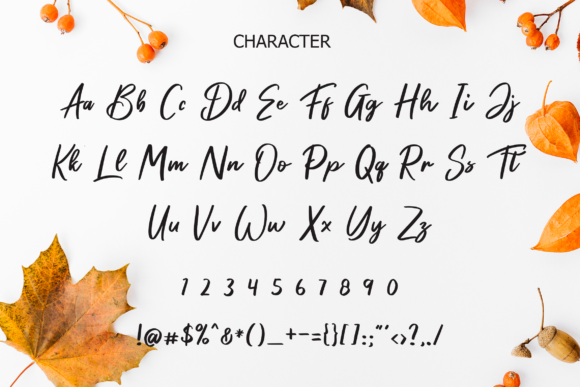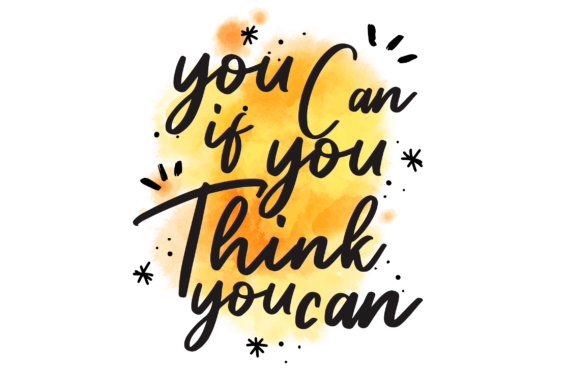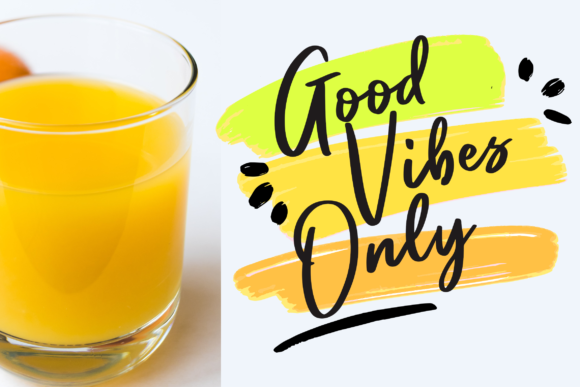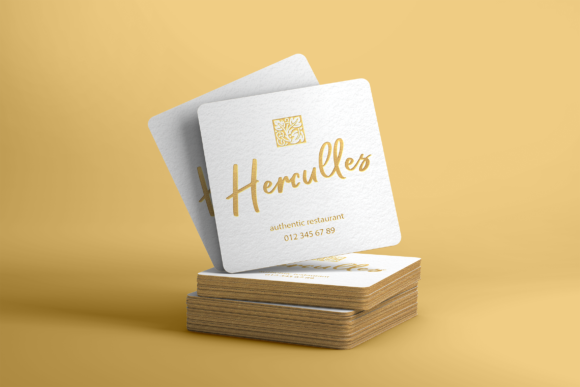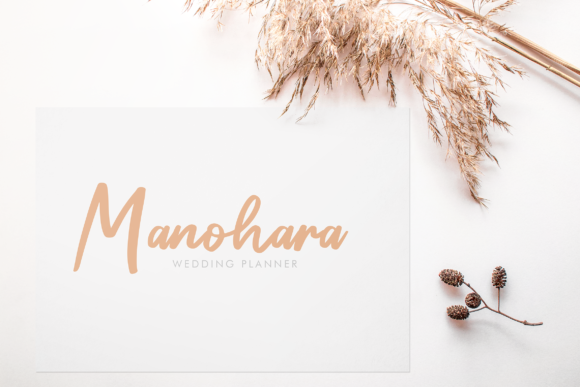
The Ultimate Design Game-Changer: Fallonly Font
Fallonly is a playfully modern script with gorgeous letters that will effortlessly take any design idea to the next level! In this article, I’ll share my honest review of Fallonly Font, a practical guide on how to use it, and some helpful tips and tricks to get the most out of this stunning font.
My Honest Review of Fallonly Font
- 💫 Beautifully crafted letters with a perfect balance of playfulness and sophistication
- ✅ Easy to read and understand, even at smaller font sizes
- 🎉 Extensive OpenType features, including glyphs and stylistic alternates, to give your designs a unique touch
- 👍 Highly versatile and pairs well with a variety of font combinations
While Fallonly Font is an amazing design tool, there are a few things to keep in mind:
- 🤔 Some users may find the font a bit too playful for very formal or corporate designs
The Story Behind Fallonly Font
Fallonly Font was designed by a team of creatives who wanted to create a font that would bring a touch of playfulness and sophistication to designs. Inspired by the beauty of handwritten scripts, Fallonly Font was crafted with love and attention to detail to create a truly unique and versatile font.
Q: What is Fallonly Font?
A: Fallonly Font is a playfully modern script font with gorgeous letters that’s perfect for designs that need a touch of playfulness and sophistication.